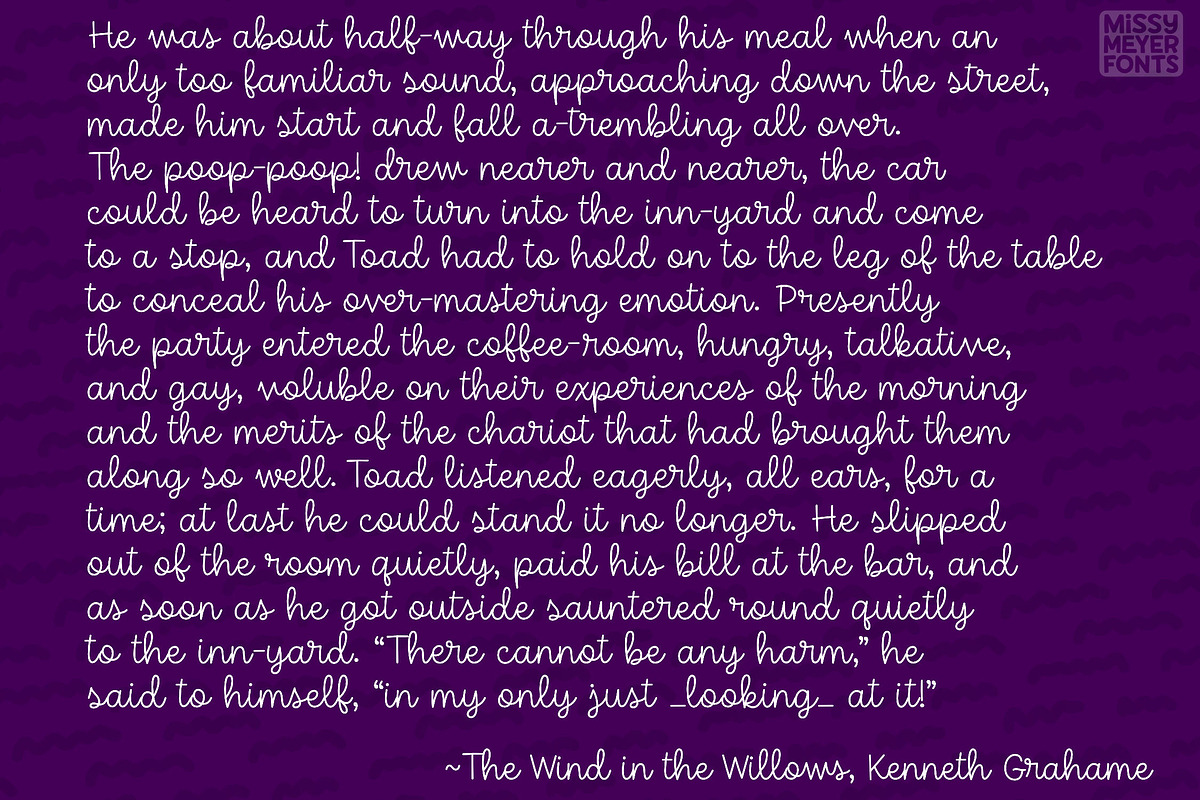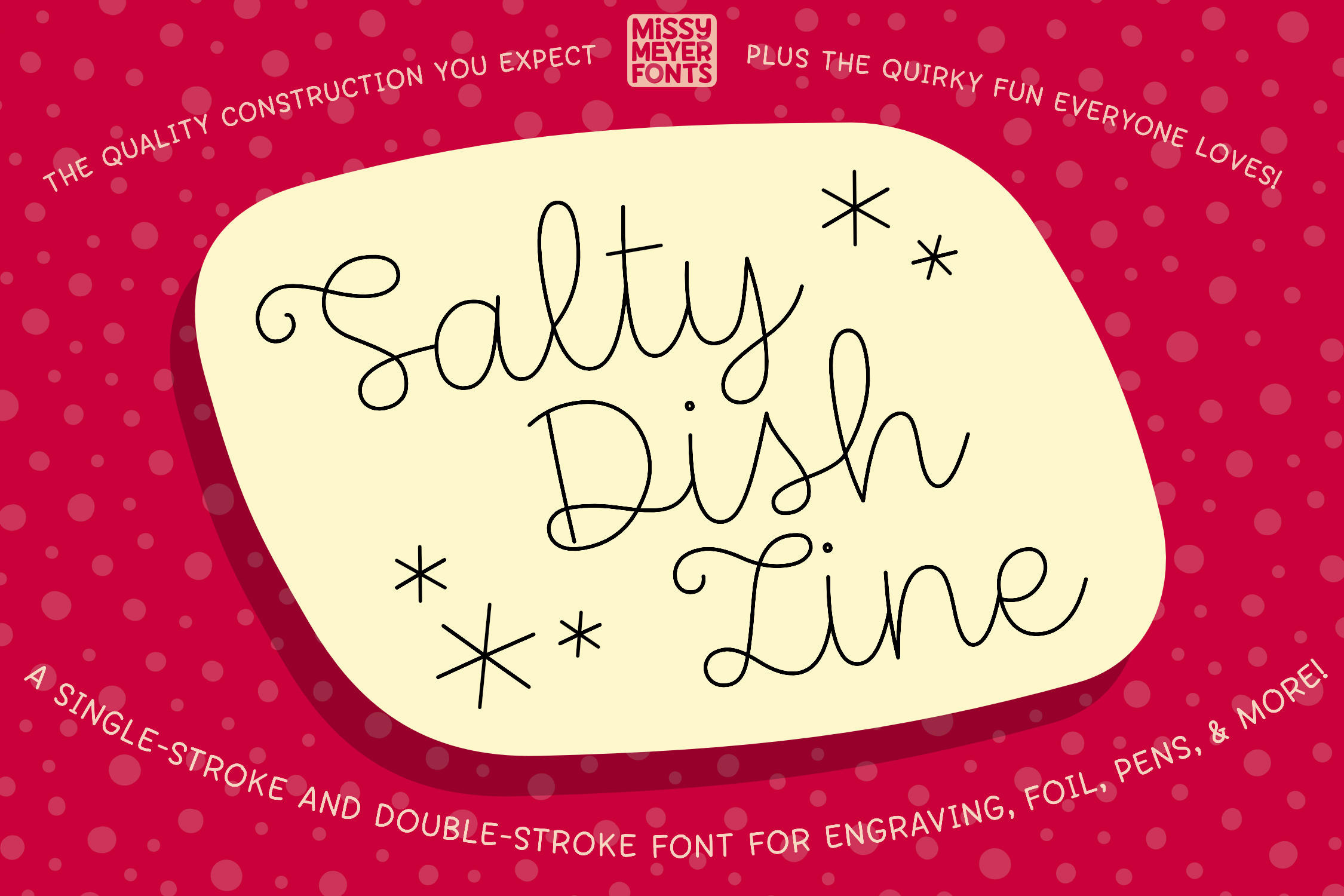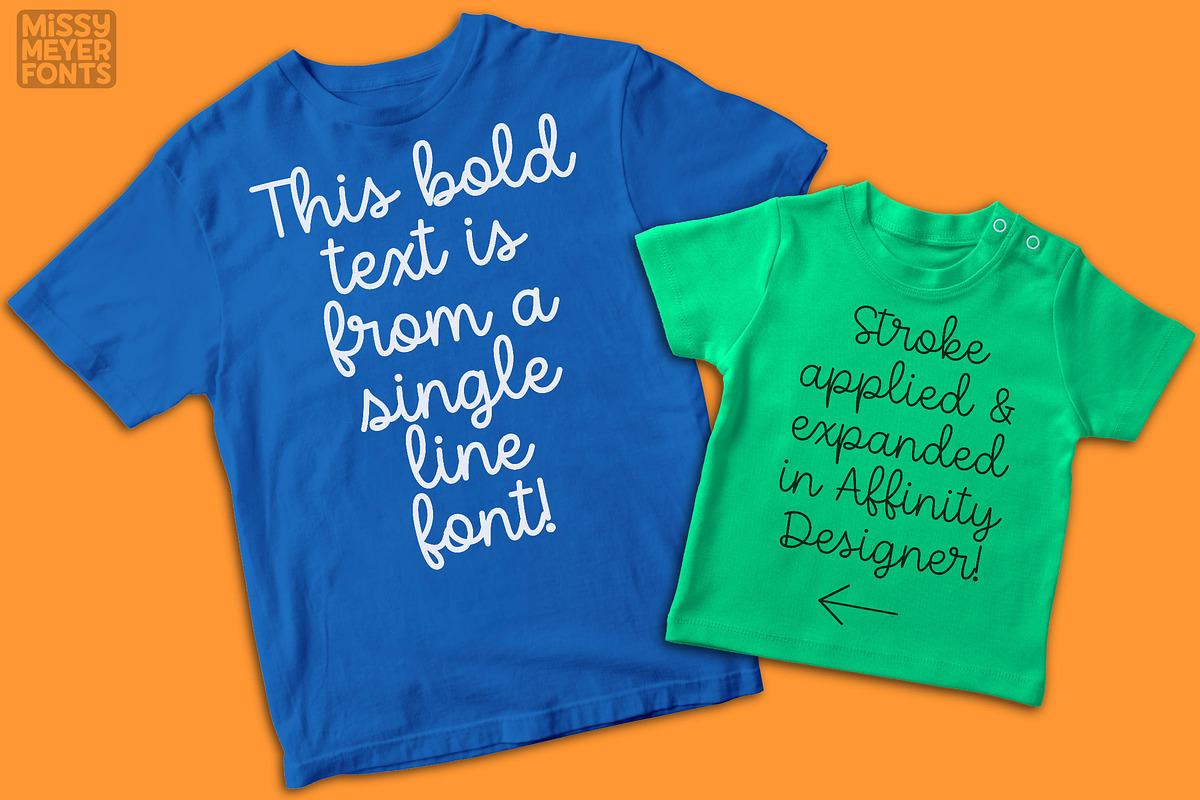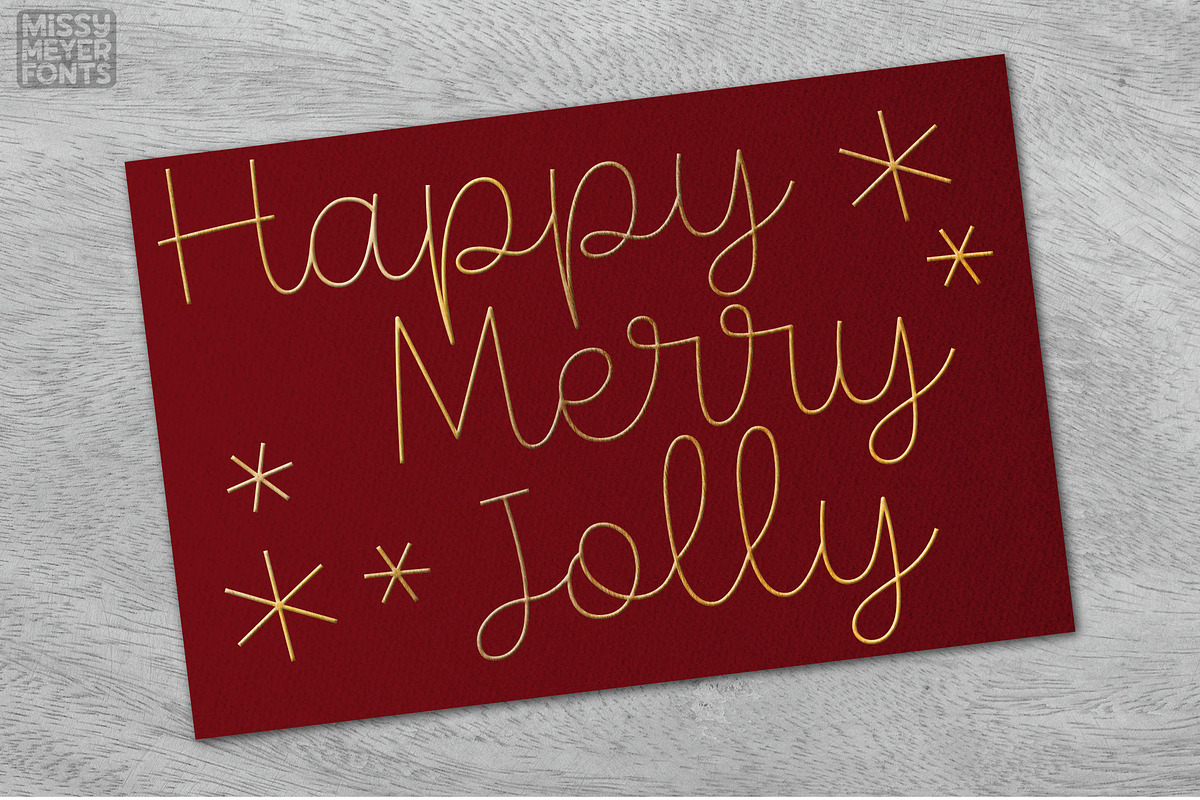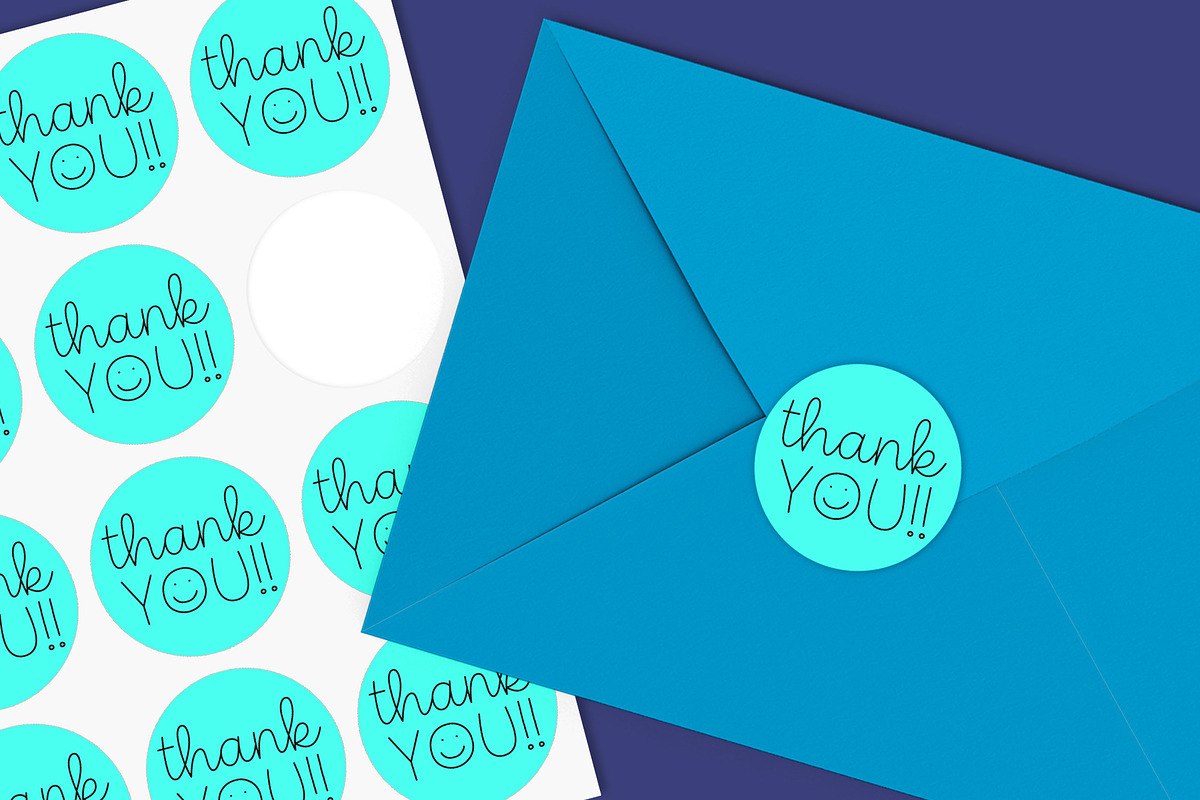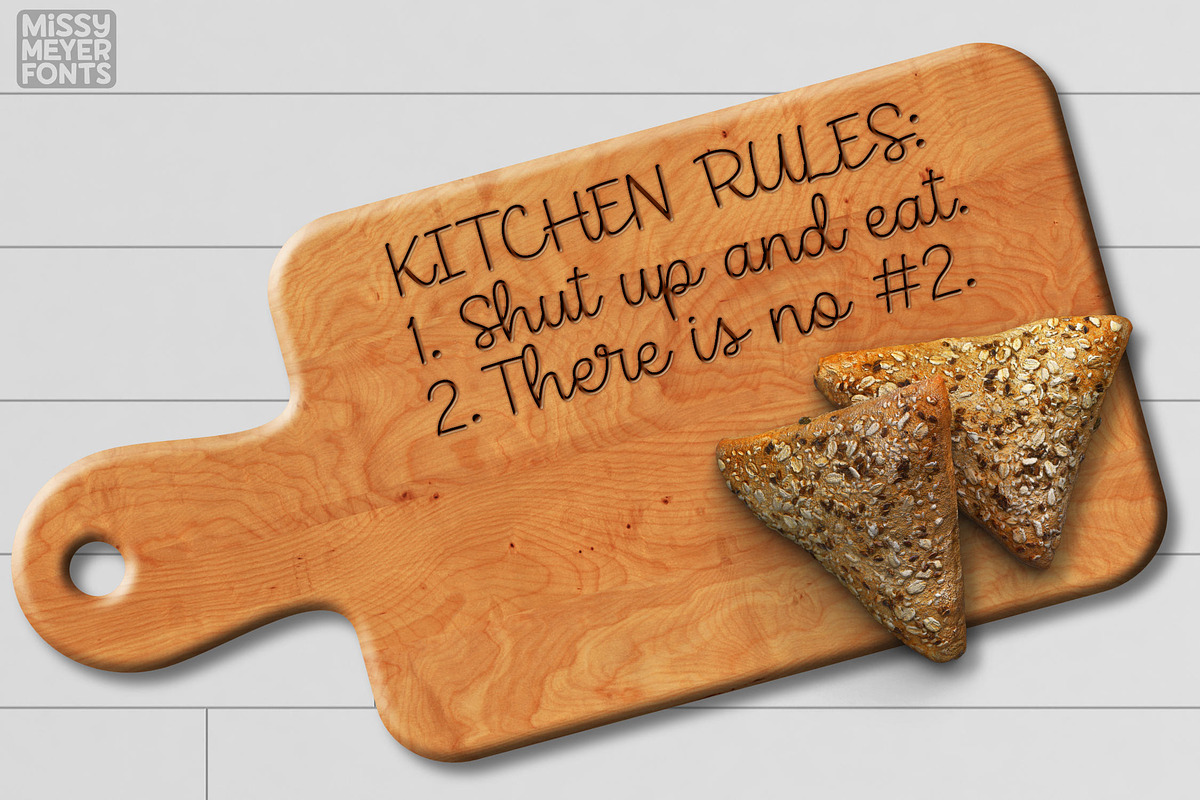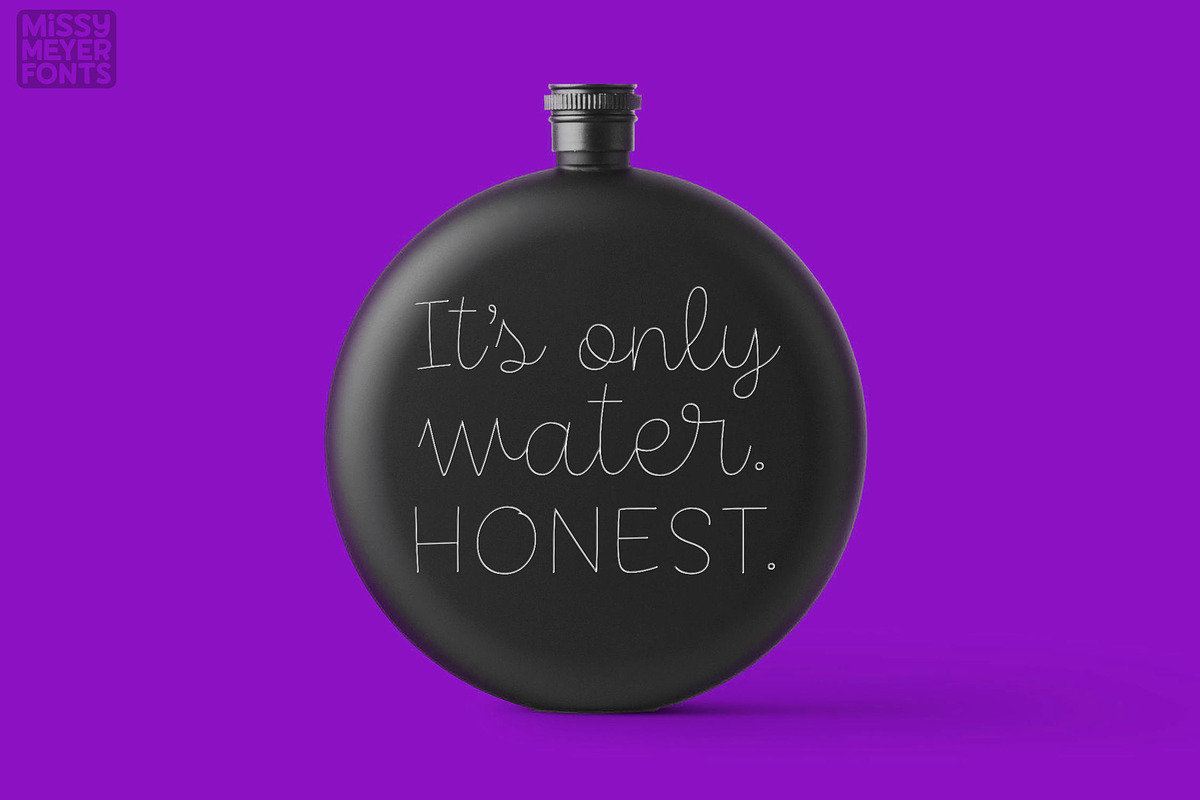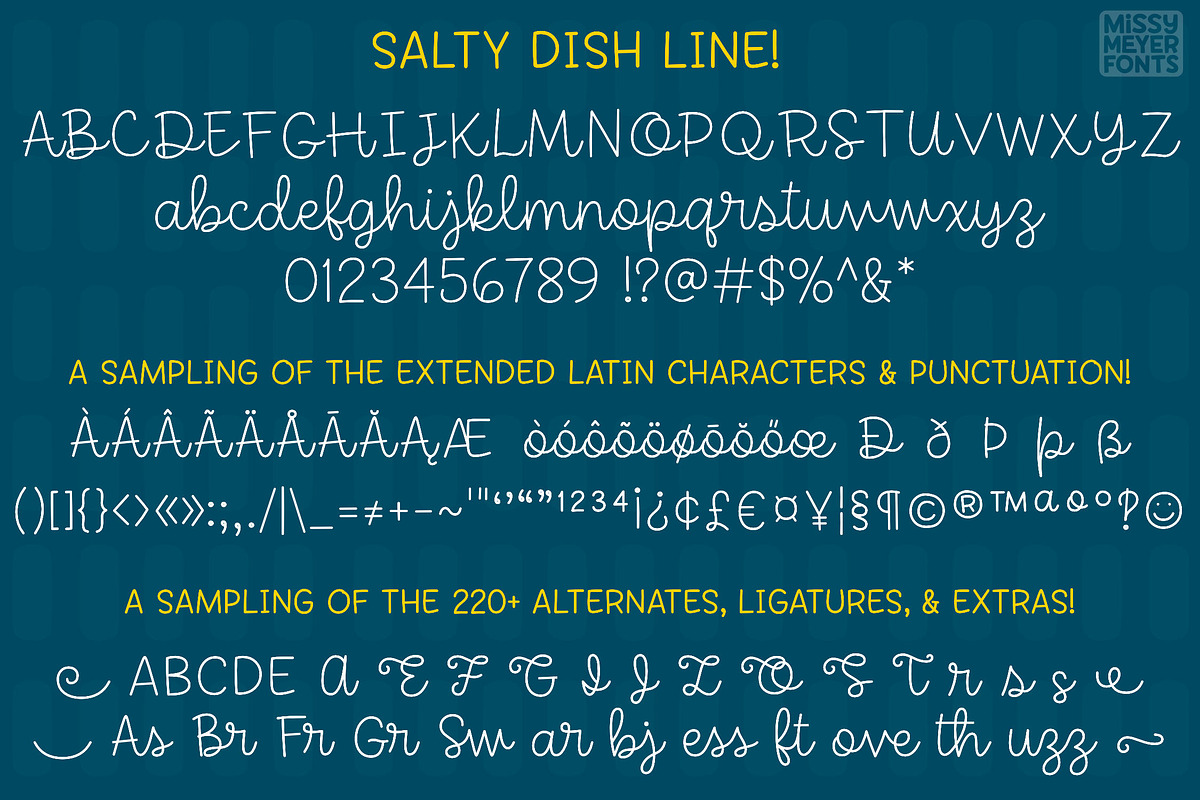
Salty Dish Line - single-line font
Salty Dish Line is a single-line font built from my "Salty Dish" outline font. It has a fun handwritten script style that works for tons of projects, from greeting cards to jewelry to cutting boards!
The font contains the full Basic Latin 95-character set (A-Z, a-z, 0-9, lots of punctuation; basically everything that appears on an English-language keyboard), as well as the Latin-1 Supplemental and Latin Extended-A character sets for language support; some extra punctuation; and several handy arrows and shapes. Supported languages range from English to Icelandic, from Spanish to Swedish!
Salty Dish Line also has over 220 alternate letters, ligatures, and swashes, including the uppercase Salty Dish Sans set!